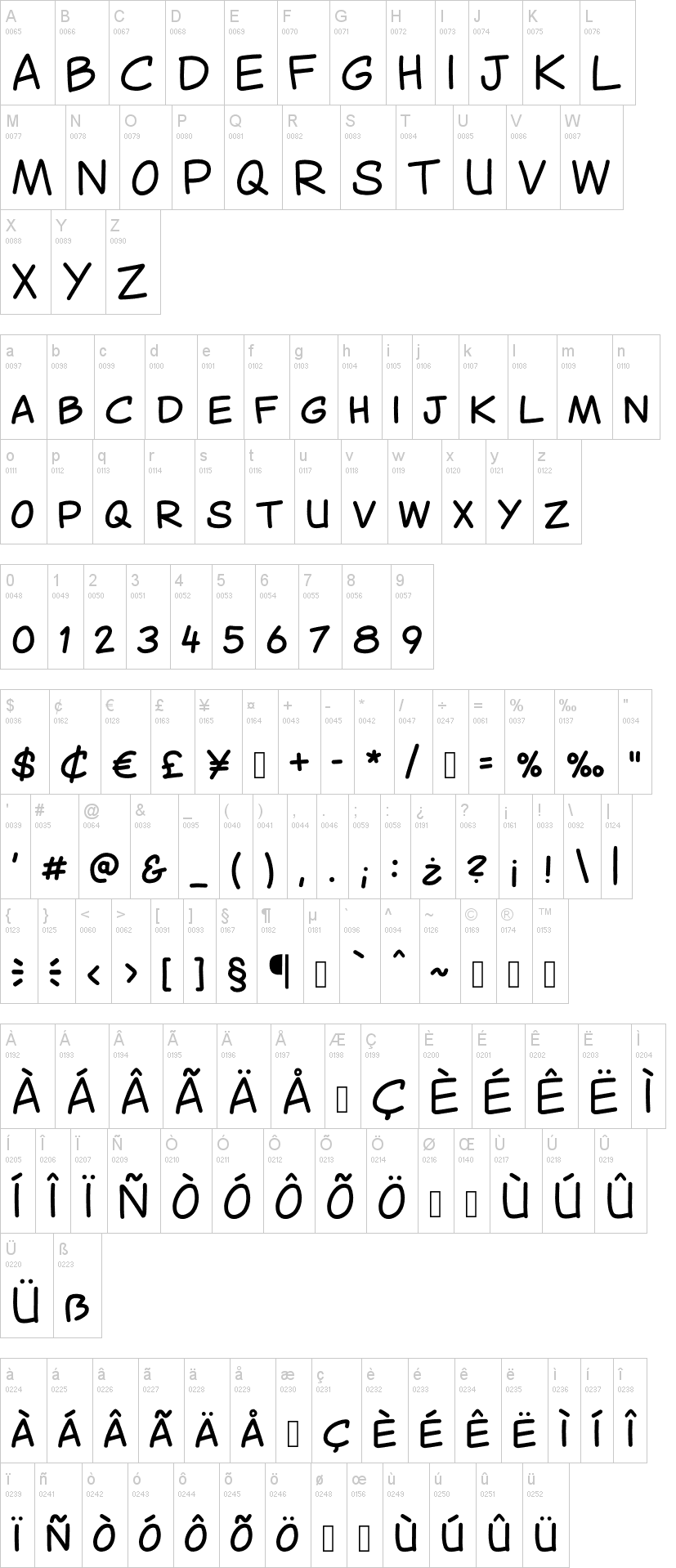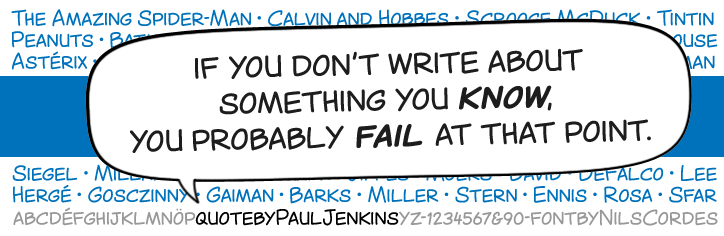
CantedComic Bold.otfNote of the authorA comic font inspired by 1960s US comic books. The boldface is slightly oblique, just like you know it from your favorite comics. Sister font of Canted FX.